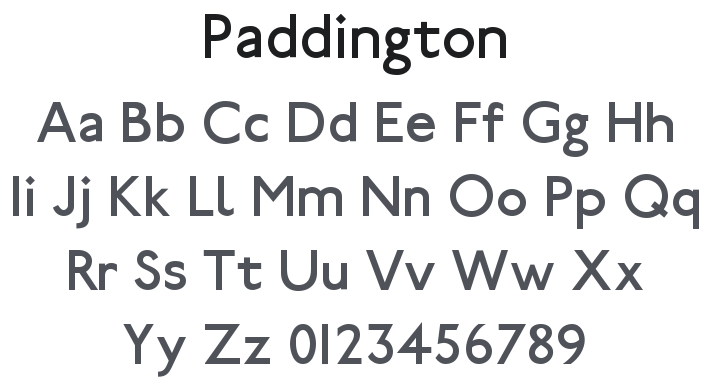
Paddington Font Family
by Stephen G. Moye
Paddington Font Family
About Paddington
Paddington is a translation of a sans-serif design drawn by Edward Johnston for London Transport in 1918. It is generally considered to be the first modern sans serif design.